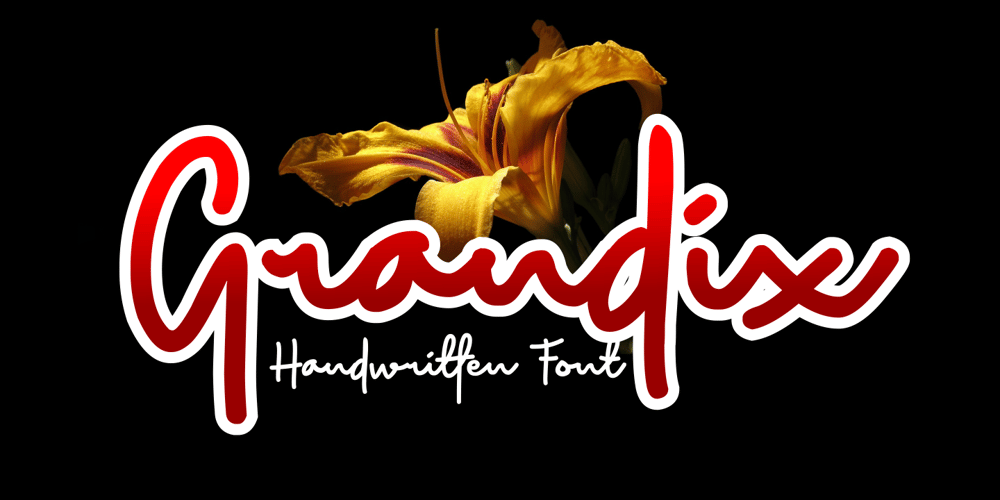
Grandix Font Family was designed by Ahmad Zulfikar Ali and published by ZetDesign. Grandix contains 4 styles and family package options. Grandix is a very elegant handwritten font. created with original handwriting in mind for a flexible and beautiful font. The font is equipped with an open type feature for easy creation. These fonts are also created in several families to give the user the choice they want.